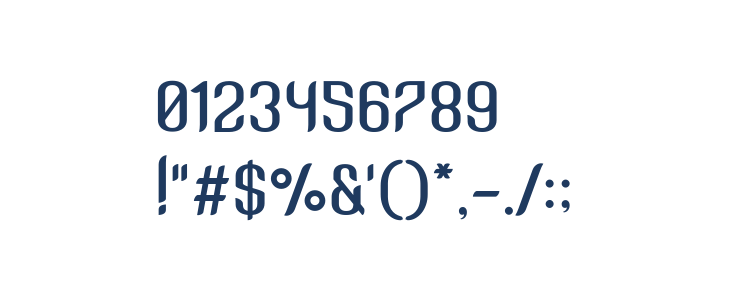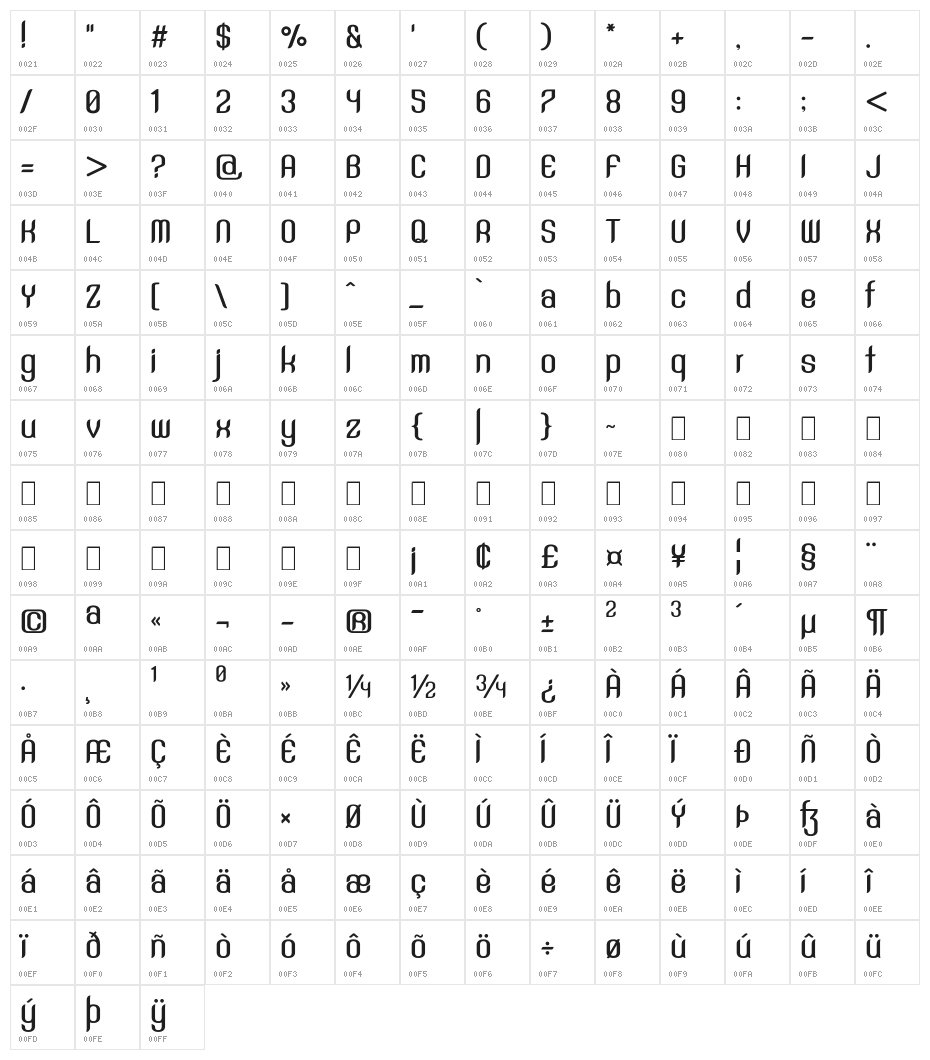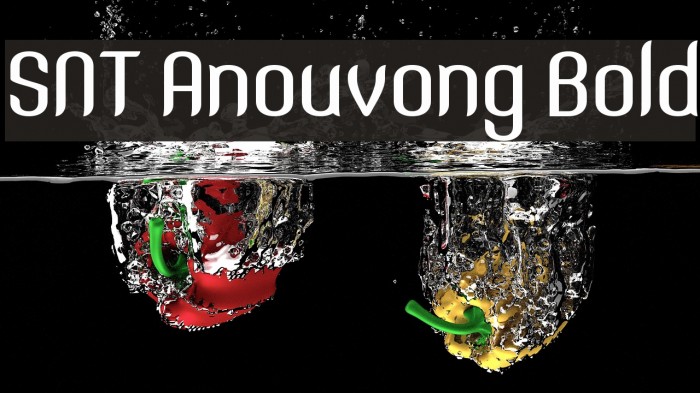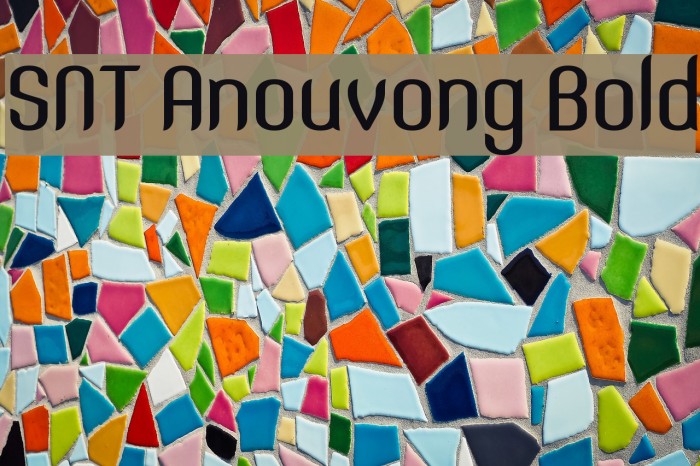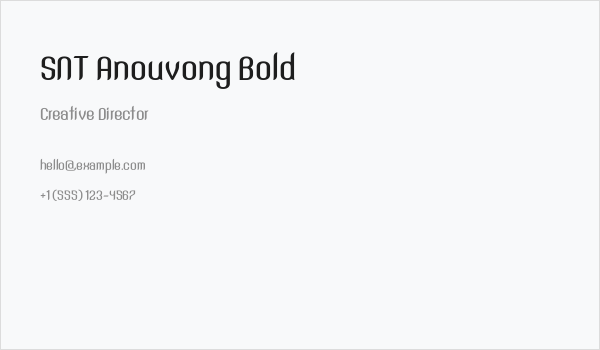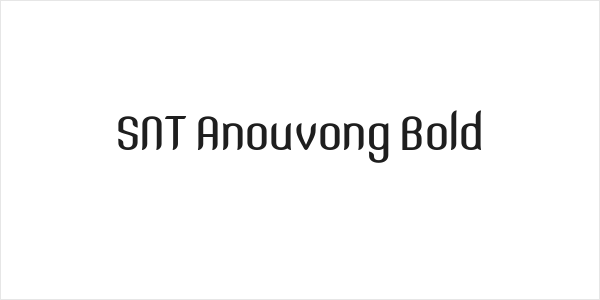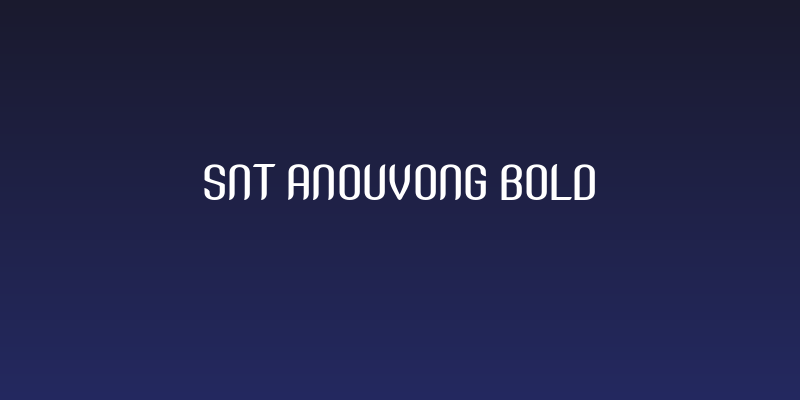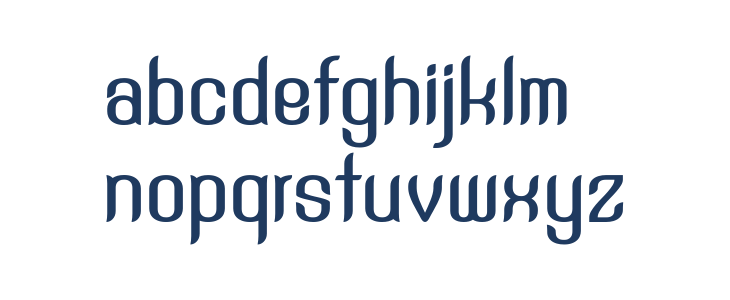
SNT Anouvong Bold Font
SNT Anouvong Bold Description
This font features a bold and modern design with a unique blend of geometric and rounded elements. The uppercase letters are tall and narrow, with a distinctive curvature that adds a touch of elegance. The lowercase letters maintain a consistent style, offering a harmonious flow. The numerals are clear and easily readable, making them suitable for various applications. Special characters are designed with the same attention to detail, ensuring a cohesive look across all glyphs. The overall appearance is both contemporary and versatile, making it ideal for a wide range of design projects.
| Proposed Projects | Ideal for branding, advertising, posters, and digital media projects that require a modern and bold aesthetic. |